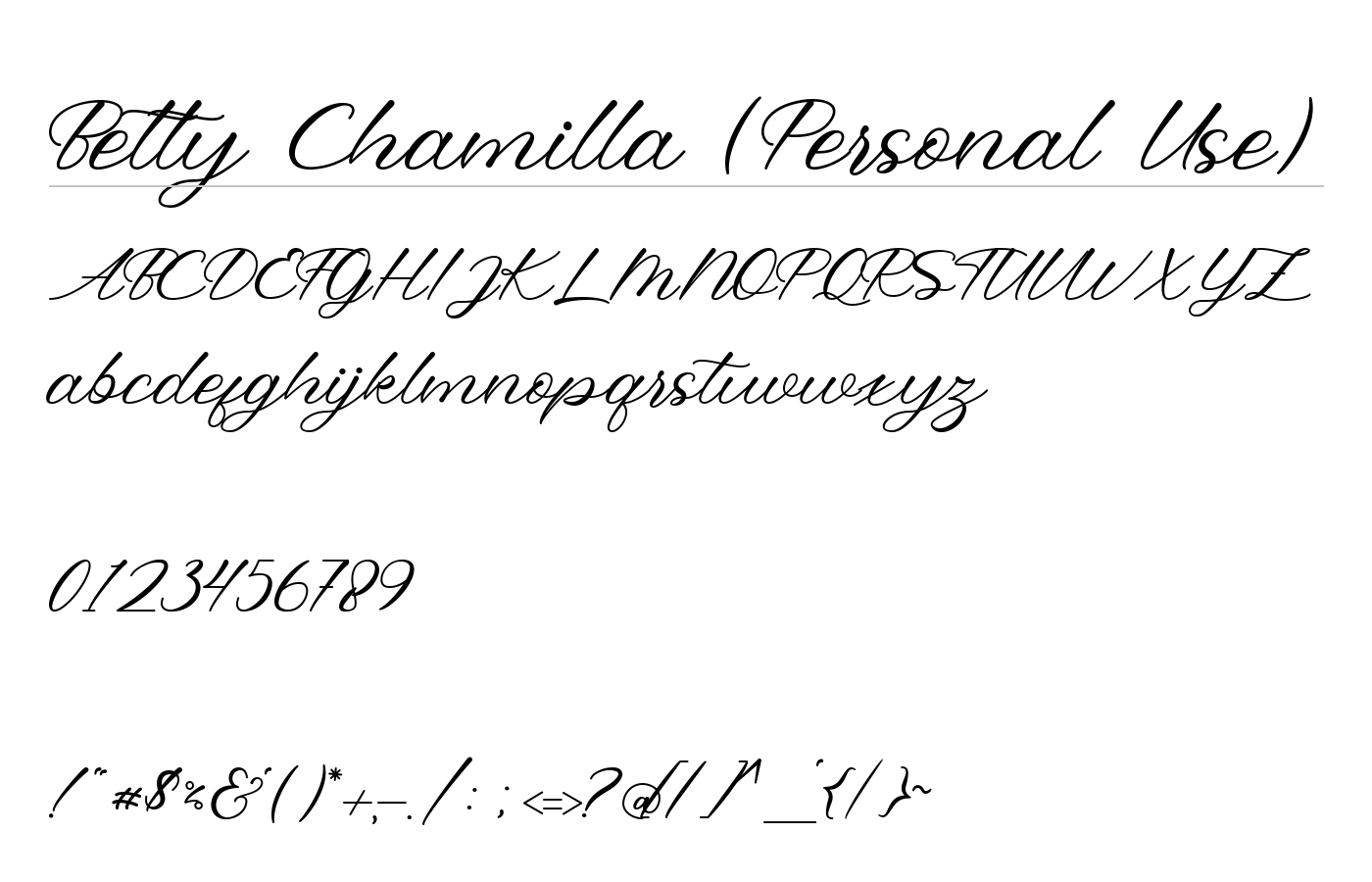
Betty Chamilla is a graceful script font with a delicate, hand-written feel characterized by its thin strokes and elegant, flowing letterforms. Its refined, slightly slanted design exudes a sophisticated and personal touch, making it ideal for invitations, branding, and projects that require a stylish, intimate vibe. This font works beautifully in settings where a graceful and feminine aesthetic is desired, such as wedding materials, fashion, and boutique logos.
Betty Chamilla (Personal Use) Font
About Betty Chamilla (Personal Use) Font